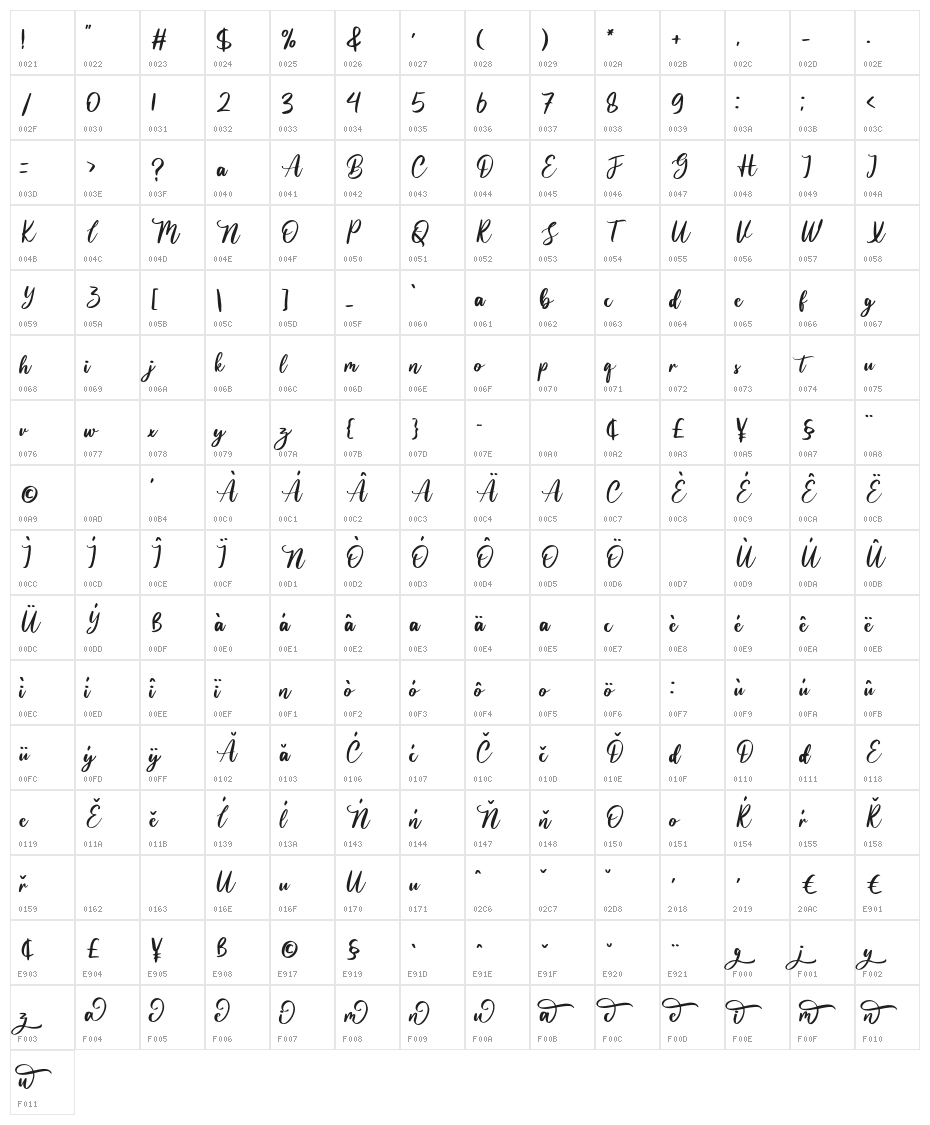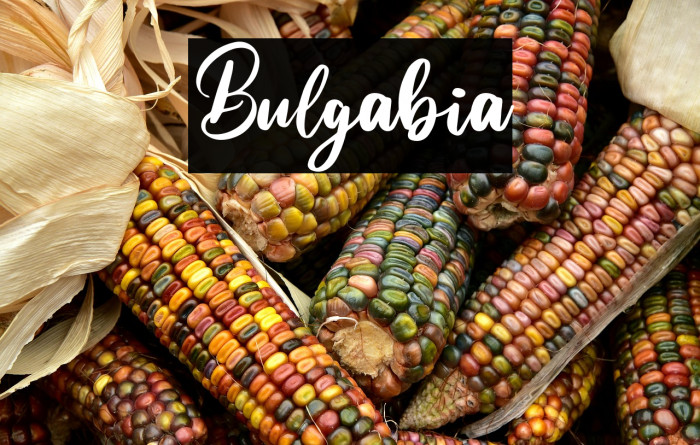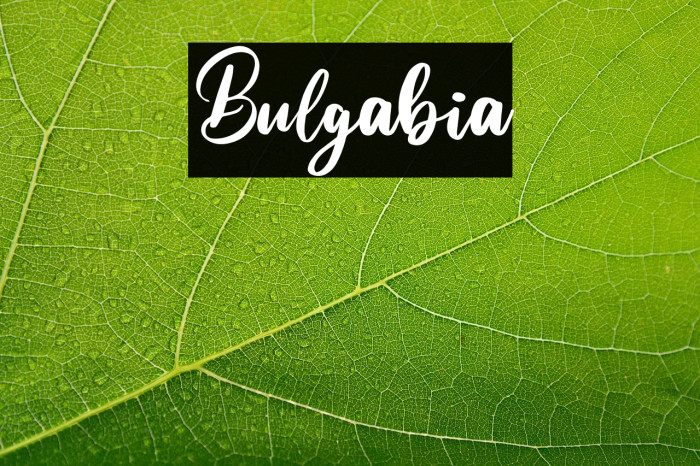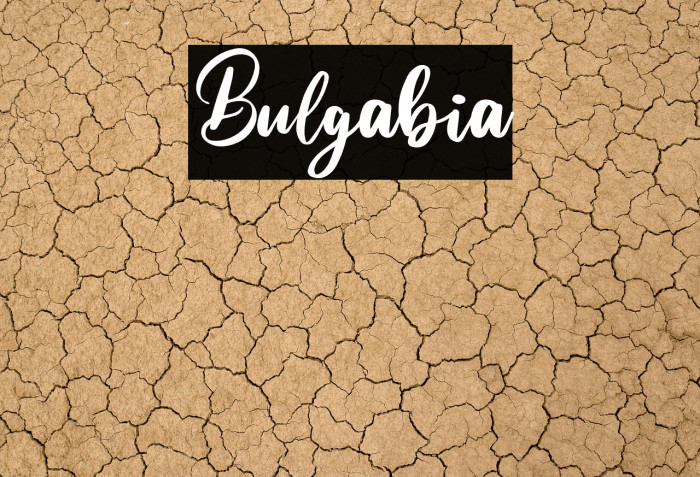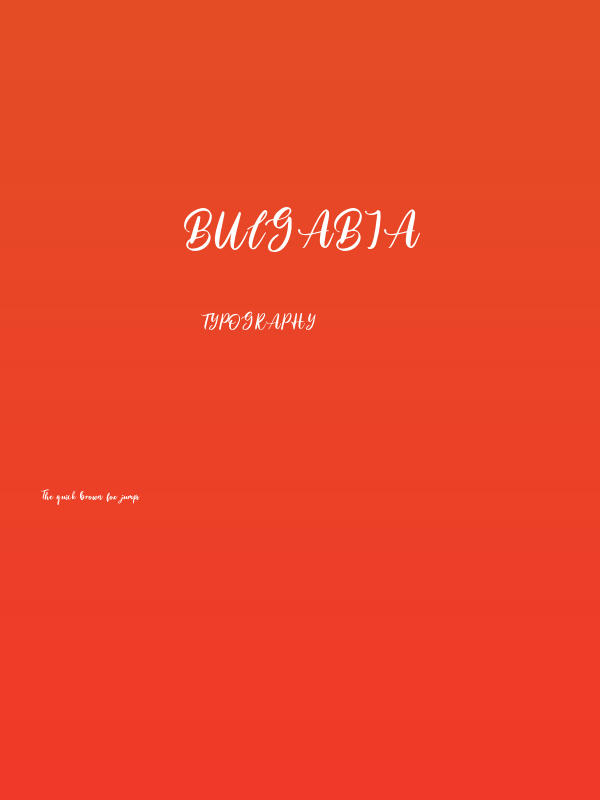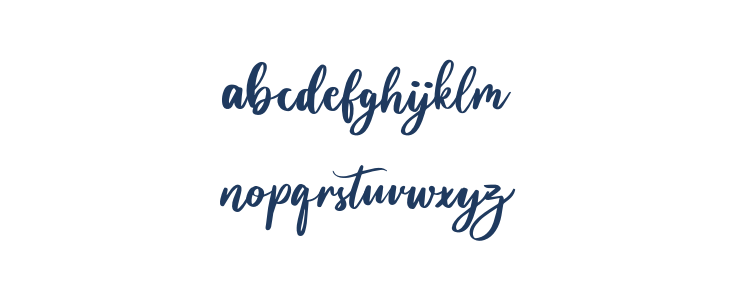
Bulgabia Font
Bulgabia Description
This font exudes a lively and dynamic energy, characterized by its flowing script style that mimics natural handwriting. The letters are elegantly connected, with smooth curves and a slight slant that adds to its fluidity. The uppercase letters are bold and prominent, while the lowercase letters maintain a more delicate appearance, creating a beautiful contrast. The numerals and special characters are crafted with the same attention to detail, ensuring a cohesive look throughout. This font is perfect for projects that require a personal touch, such as invitations, greeting cards, or branding materials.
| Use Case | Logos, Headlines, Invitations |
| Proposed Projects | Ideal for invitations, greeting cards, branding materials, and any project needing a personal touch. |